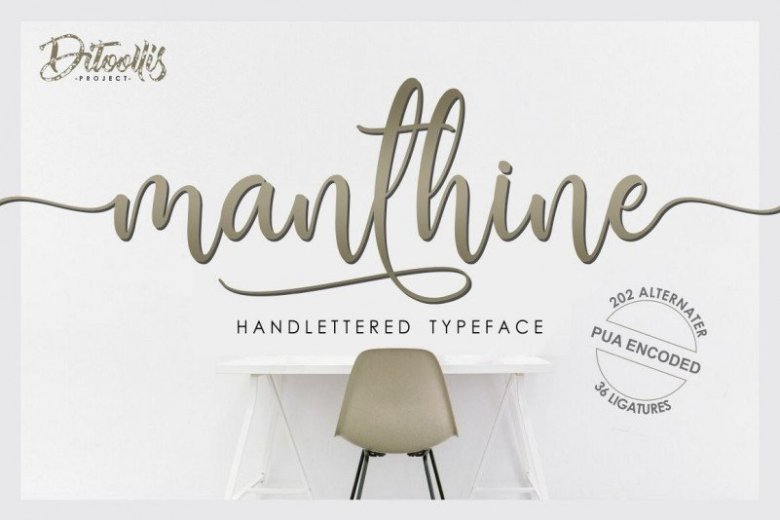
Manthine Handlettered Font
This is a modern calligraphy typeface. This is a Beautiful font designed according to general needs. You find something very extraordinary and fashionable. Introducing Manthine Font. This font is very modern, and is perfect for your design … This font is suitable for business cards, logos, covers, comics, invitations, etc.